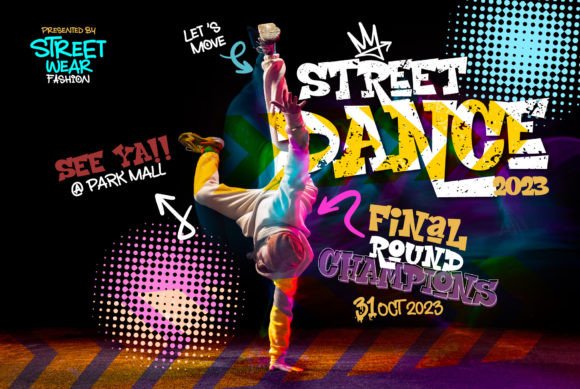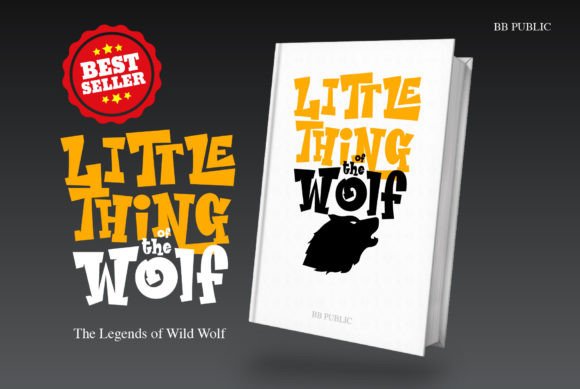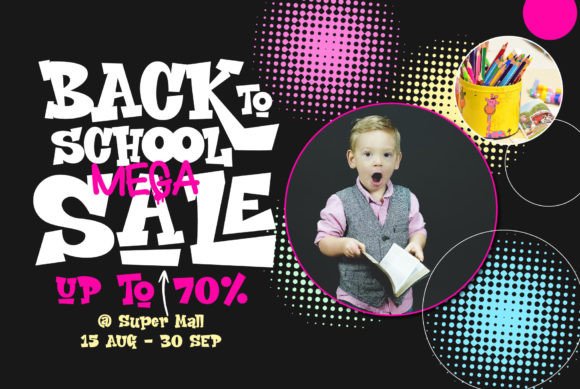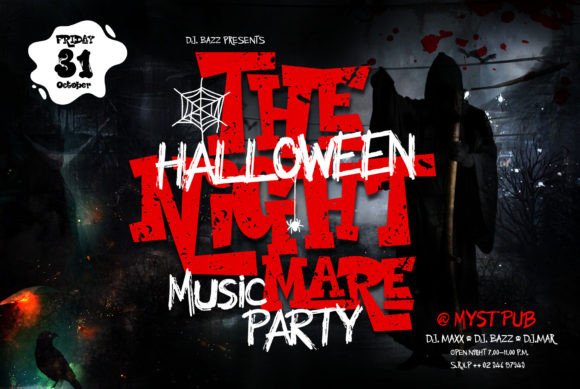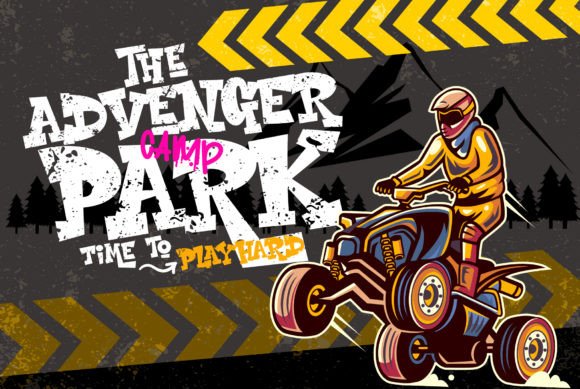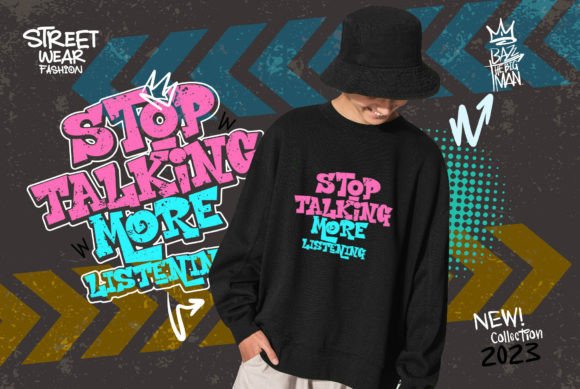
Introduction to Night Guy Font Font
Fonts play a crucial role in design, and the Night Guy Font font is a typeface that brings both character and versatility to any project. Whether you’re working on a branding project, a website, or a print design, the Night Guy Font font offers a unique style that can elevate your work.
Night Guy is an incredibly unique and bold graffiti display font.
Masterfully designed to become a true favorite, this font has the potential to bring each of your creative ideas to the highest level .
Key Features of Night Guy Font Font
Why Choose Night Guy Font Font?
The Night Guy Font font is more than just a typeface – it’s a design tool that helps you communicate your message with style and clarity. Its unique character set and versatile design make it suitable for a wide range of applications, from elegant invitations to bold headlines.
With its carefully crafted letterforms and balanced proportions, the Night Guy Font font ensures readability and visual appeal across all mediums.
What makes Night Guy Font font special?
The Night Guy Font font stands out with its unique design, exceptional readability, and versatility across various design applications.